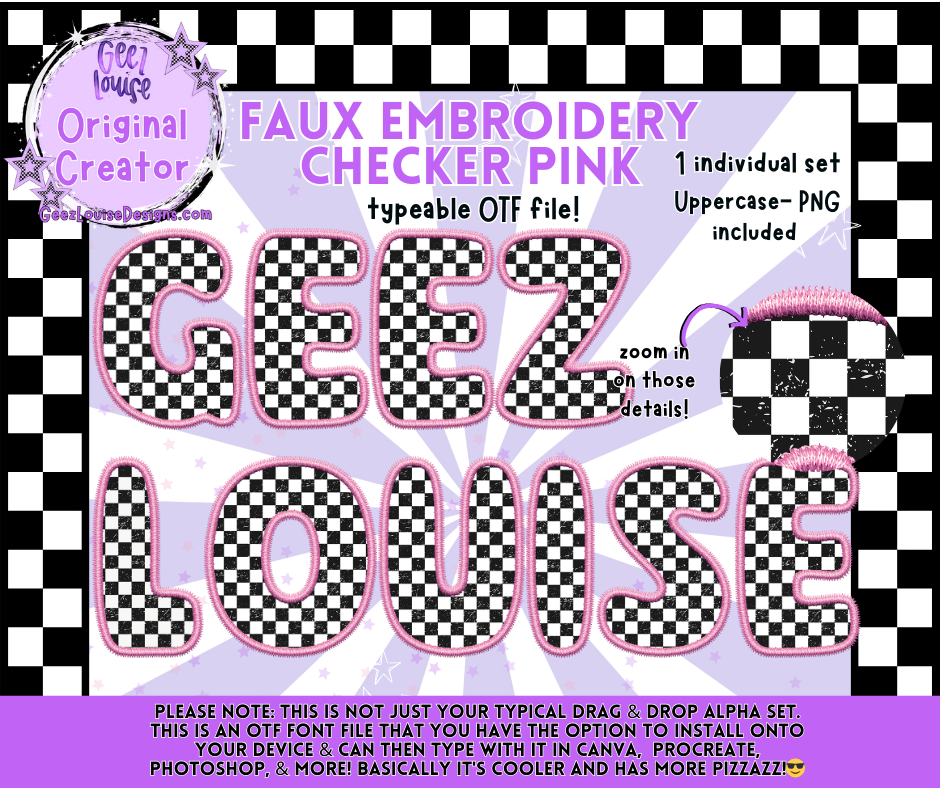
Bring bold vibes to your designs with the Faux Embroidery Checker Pink OTF font! 🩷🖤 This unique alpha gives you the stitched look of embroidery mixed with edgy checkerboard style—all without the thread. Perfect for holiday projects, team spirit designs, or everyday creative work.
• Faux embroidery checker detail for an authentic stitched effect